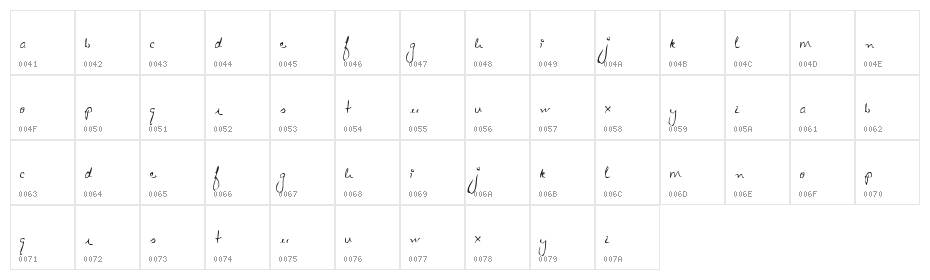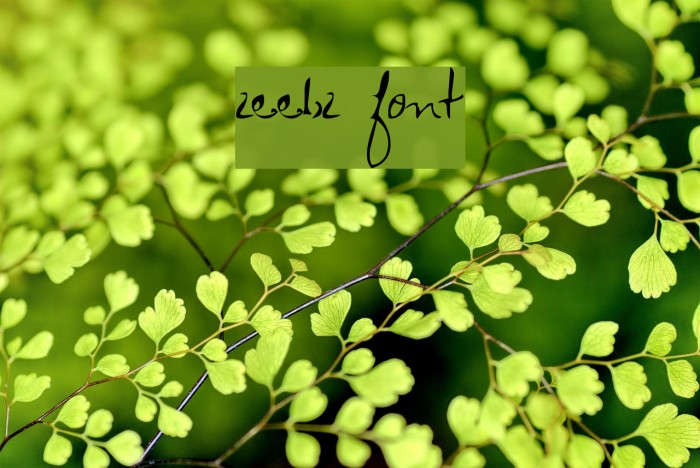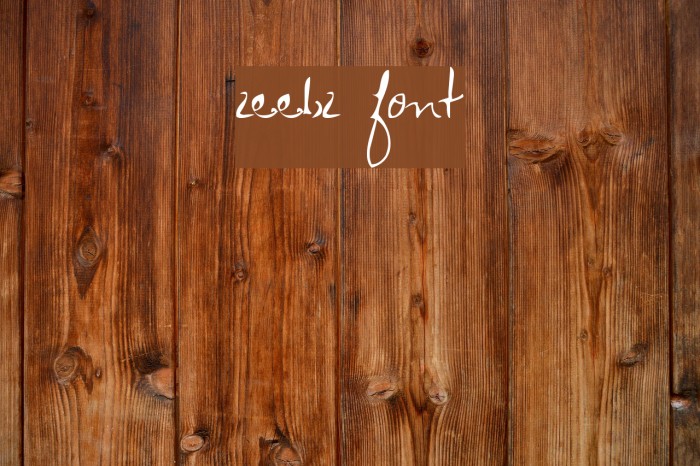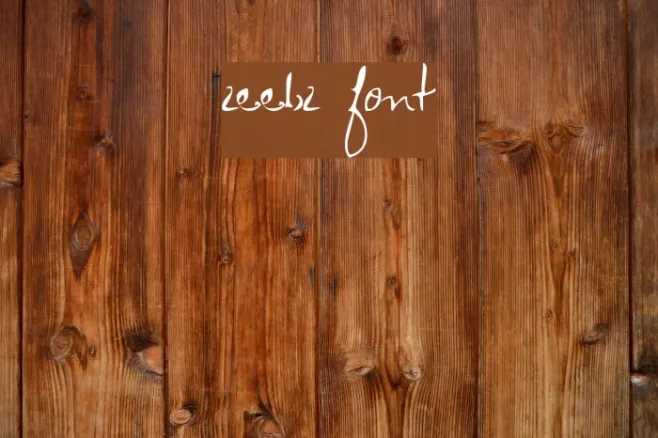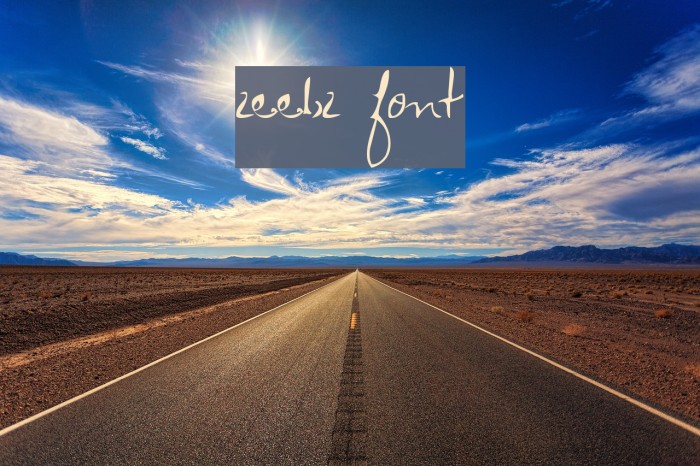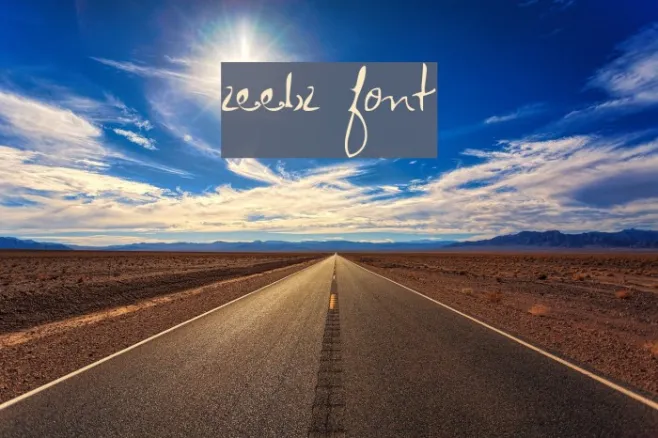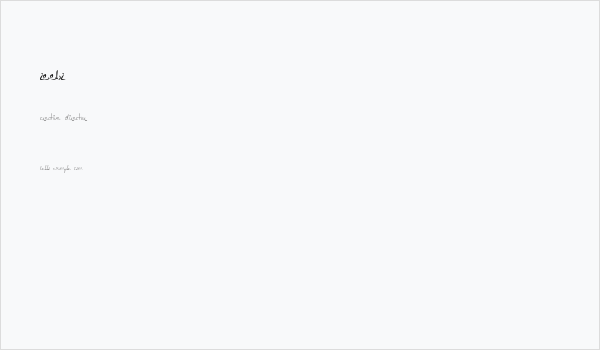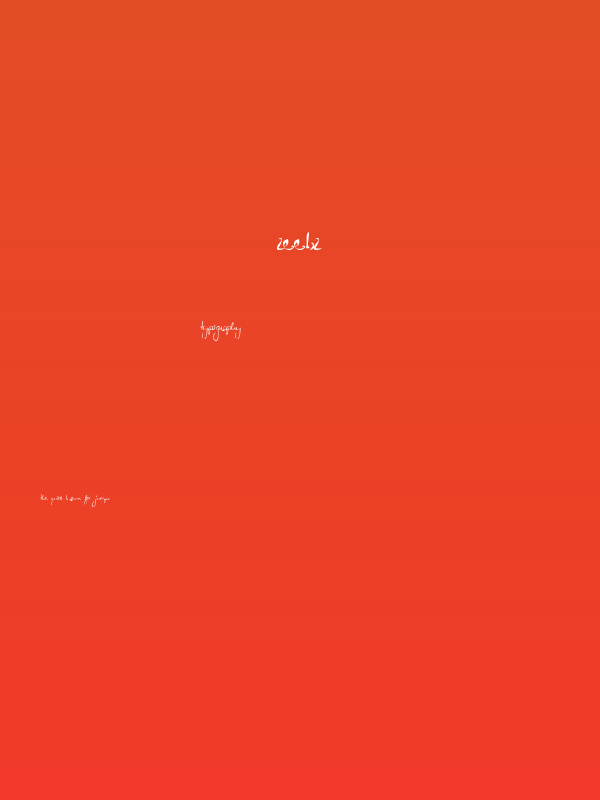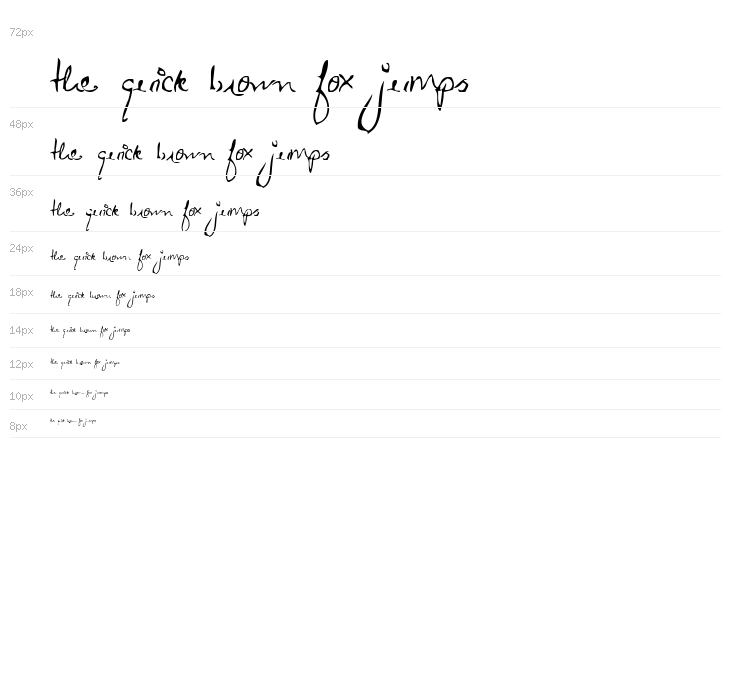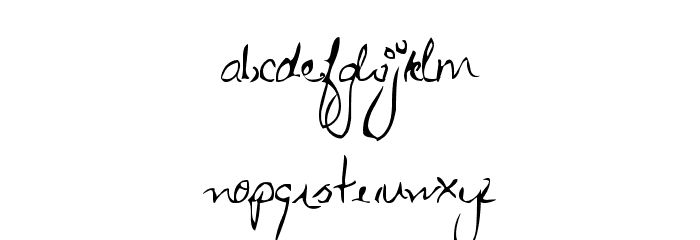
Zeebz Font
Zeebz Description
This font features a distinctive handwritten style with an elegant and flowing script. The characters are intricately designed with varying stroke widths, creating a dynamic and artistic appearance. The letters have a natural, organic feel, reminiscent of calligraphy, with some characters extending below the baseline, adding to its unique charm. This font is ideal for projects that require a personal touch or a creative flair, such as invitations, greeting cards, or artistic branding. Its overall aesthetic is both sophisticated and approachable, making it versatile for various design needs.
Overall StyleArtistic, Elegant
Use CaseLogos, Invitations, Artistic projects
Proposed ProjectsIdeal for invitations, greeting cards, artistic branding, and personal projects.